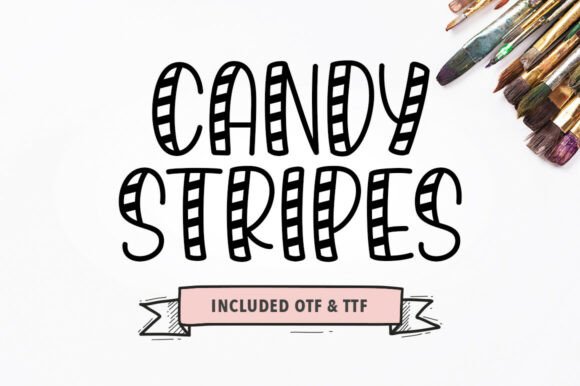
The Sweetest Font for Your Festive Designs: A Deep Dive into Candy Stripes
I still remember the holiday season a few years ago when I was tasked with creating a festive branding campaign for a local bakery. I spent hours scouring font libraries, searching for the perfect typeface that would capture the whimsical, playful spirit of the season. That’s when I stumbled upon Candy Stripes, a delightful display font that instantly transported me to a colorful candy shop. In this article, I’ll share my love for Candy Stripes, its features, and how to make the most of this beautiful font in your designs.
What Makes Candy Stripes So Special?
Candy Stripes is a playful, sweet, and highly creative display font designed to bring a festive “twist” to your holiday and celebratory designs. Characterized by its tall, slender letterforms and a charming internal pattern of diagonal stripes, this typeface perfectly captures a whimsical, “candy-shop” aesthetic.
• ✨ Unique and eye-catching design: The diagonal stripes within each letterform add an extra layer of visual interest, making your designs stand out.
• âś… Perfect for festive designs: Candy Stripes is ideal for Christmas branding, birthday party invitations, creative gift packaging, and artisanal confectionery logos.
• 🎉 Hand-drawn charm: The font’s bouncy rhythm and handcrafted feel add a touch of personality to any design.
• ✨ The font’s unique design and charming details make it perfect for adding a touch of whimsy to my designs.
• âś… The tall, slender letterforms provide excellent readability, even at larger font sizes.
• 🎉 The hand-drawn feel and bouncy rhythm add a playful touch to any design.
• 🤔 Limited use cases: While Candy Stripes is perfect for festive designs, it may not be the best choice for more formal or professional projects.
• ⚠️ Requires careful color selection: The diagonal stripes within each letterform can be visually overwhelming if not paired with the right colors.
The Backstory Behind Candy Stripes
Candy Stripes was designed by a creative team inspired by the colorful world of candy shops and festive celebrations. The team aimed to create a font that would capture the whimsical, playful spirit of the holiday season. With its unique design and charming details, Candy Stripes has become a beloved font among designers and crafters.
Q: What makes Candy Stripes unique?
A: Candy Stripes features a unique internal pattern of diagonal stripes within each letterform, giving it a distinctive and eye-catching design.
Q: Is Candy Stripes suitable for professional designs?
A: While Candy Stripes is perfect for festive and celebratory designs, it may not be the best choice for more formal or professional projects.